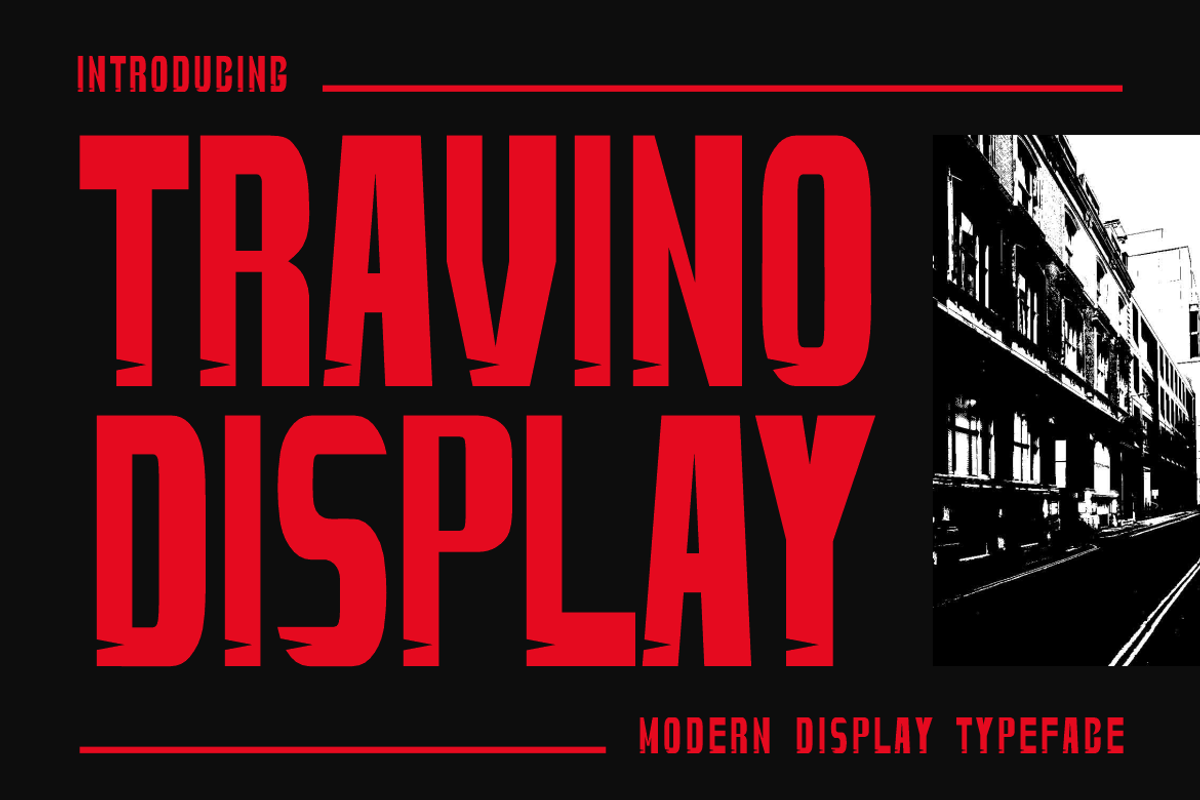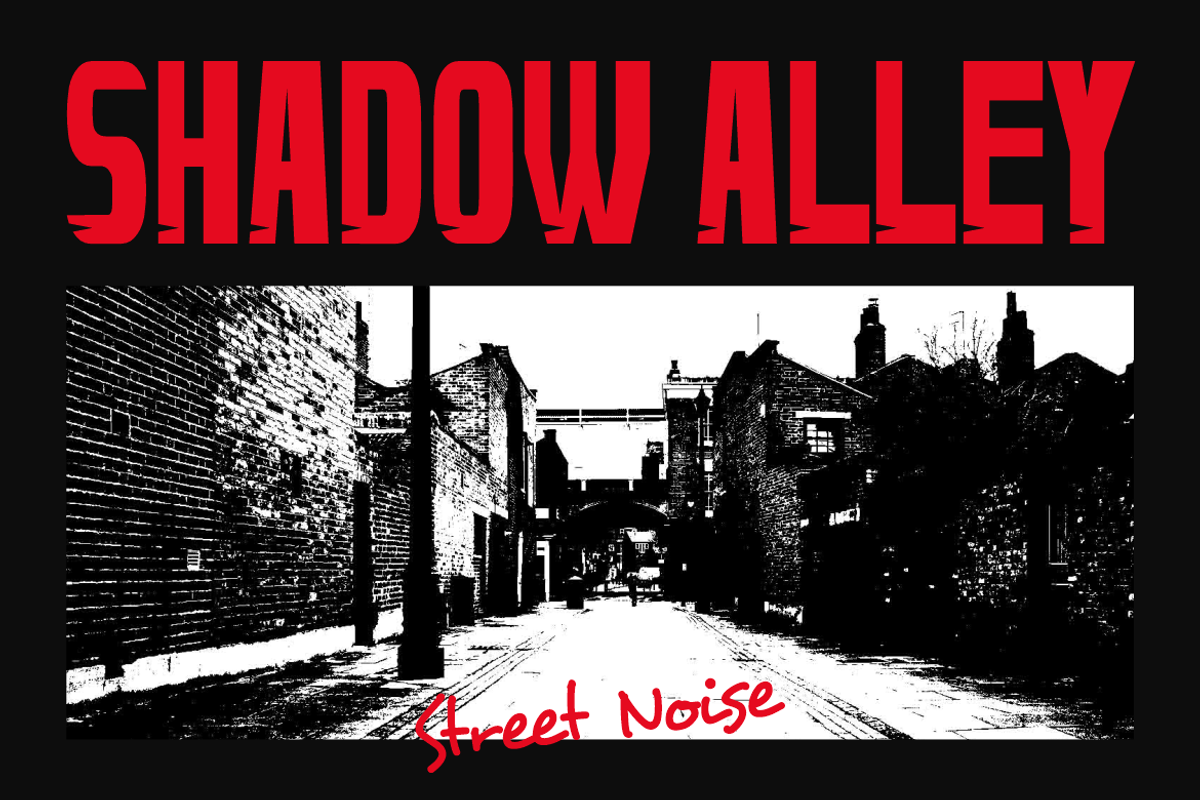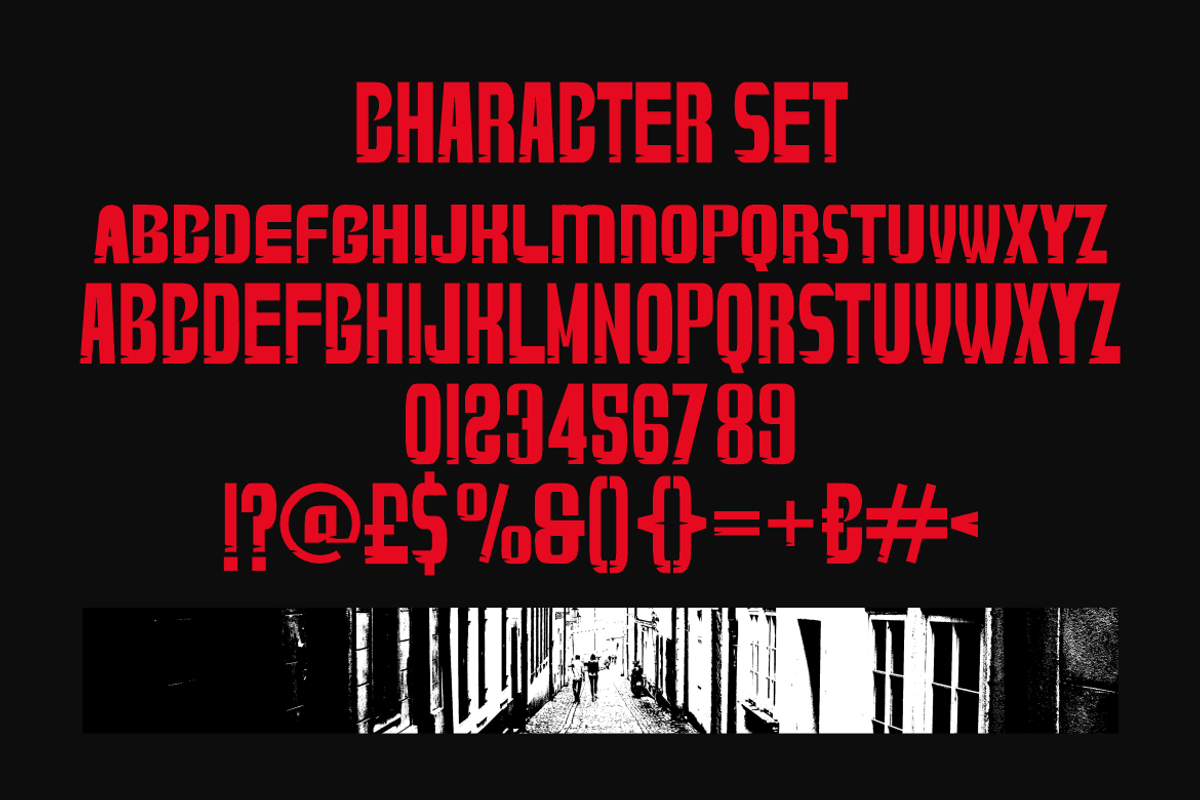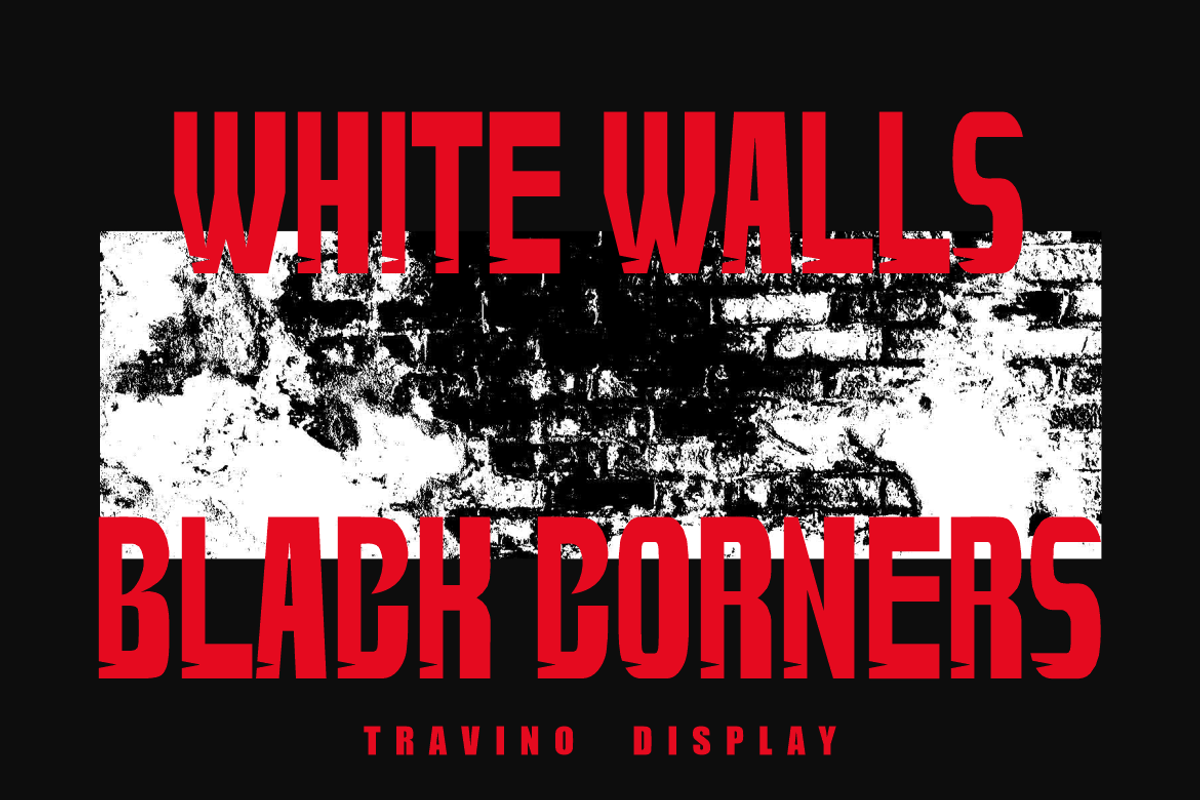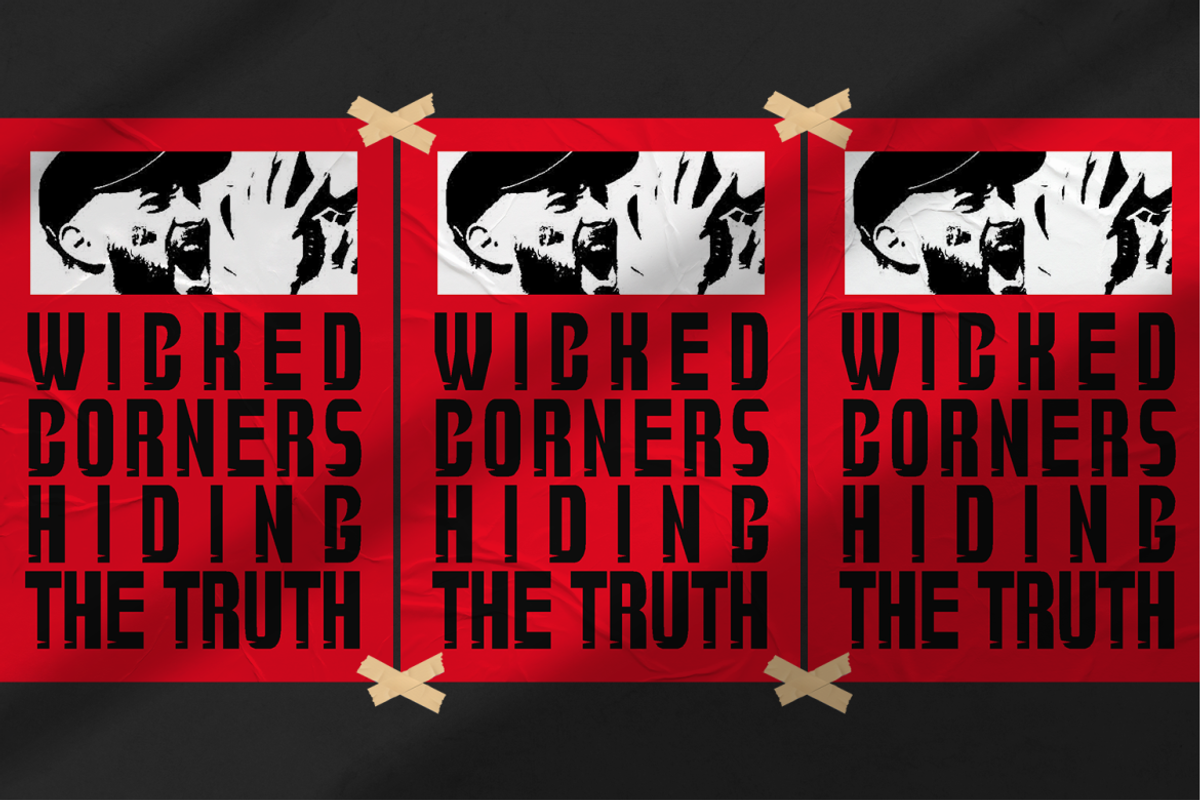
Travino Display - Modern Display
Travino Display is a bold and commanding typeface crafted for modern visual impact. Inspired by urban grit and industrial aesthetics, each letterform features sharp vertical lines with dramatic cuts at the baseline and capline, adding a sense of tension and edge. This display font captures the raw energy of street posters and underground zines while maintaining clean alignment and readability. The stark contrast between red typography and black backgrounds in the preview reinforces its rebellious tone—perfect for daring designs that demand attention.
Designed for versatility, Travino Display excels in logos, poster headlines, packaging, magazine titles, film intros, and urban branding. Its geometric weight and high legibility ensure optimal performance in both digital and print media. Whether for streetwear branding or political street art, this font brings attitude and precision in every use. Travino Display turns typographic composition into a bold statement—ideal for any creative who plays by their own rules.